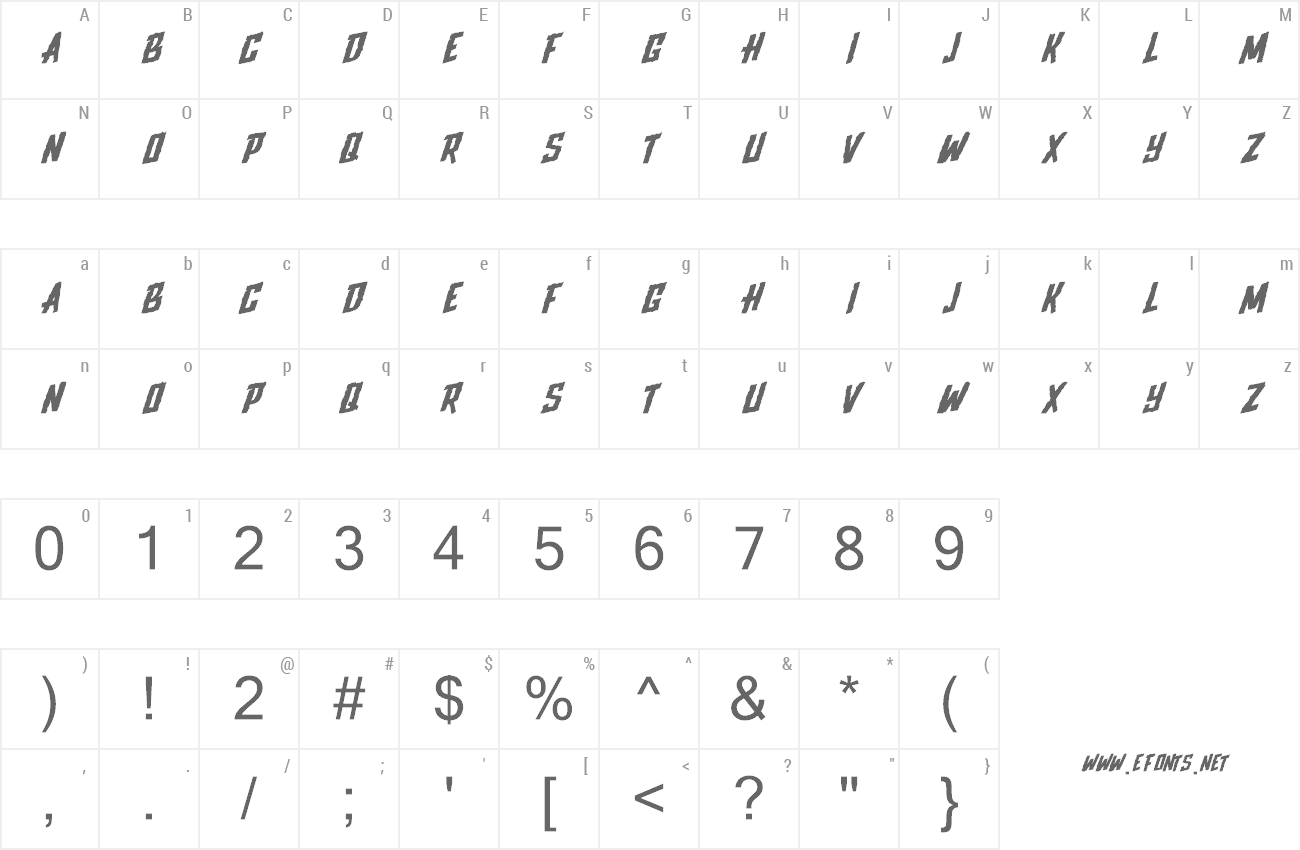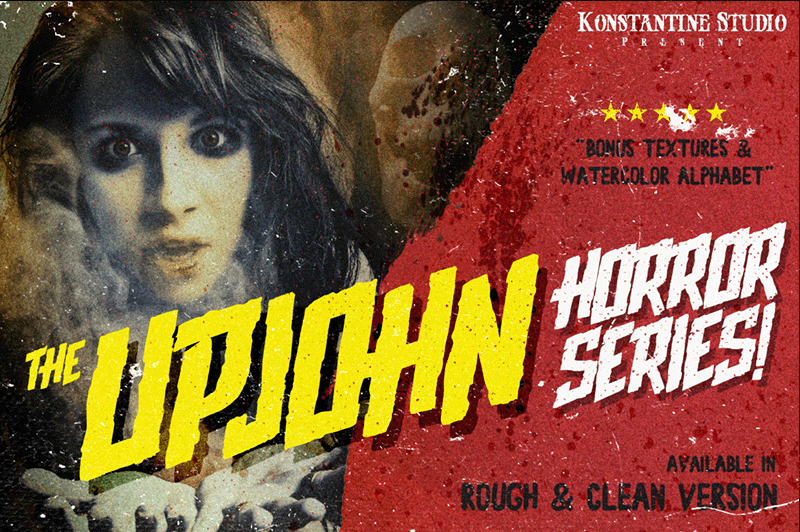
Preview and download Upjohn Rough Font. Created by Konstantine Studio in Fancy Horror styles with Demo license.
Inspired from Horror and Thriller movie posters back in old era, with bold and solid stroke styles that pointed to the instant-retro feels when you drop it to your vintage or retro design project Comes with 2 version, Clean and Rough with Uppercase, Numbers and Punctuations. Support English language, OTF and TTF files -BONUS PACK- 1. The Texture Pack Contains 8 different vintage retro textures with transparent background and High Resolution quality (Size A4, 600DPI). Details are very solid and super fit for the additional or finishing touch for your retro/vintage design stuff 2. Watercolor Alphabets Contains the 28 alphabet from A to Z written using the square brush and watercolour paint. the detailed strokes and the handmade feels are pretty genuine. High Resolution quality and separated layer in Photoshop for each letters. Tweak it up and expand your creativity without getting your hands dirt ***NOTE : This is the DEMO VERSION of this font, bonus not included. You can purchase the full version at : http://crtv.mk/chk9 Or you can check at our Behance : https://www.behance.net/konstantinestudio and click on the product, available for PayPal purchasing payment Thanks ;) |